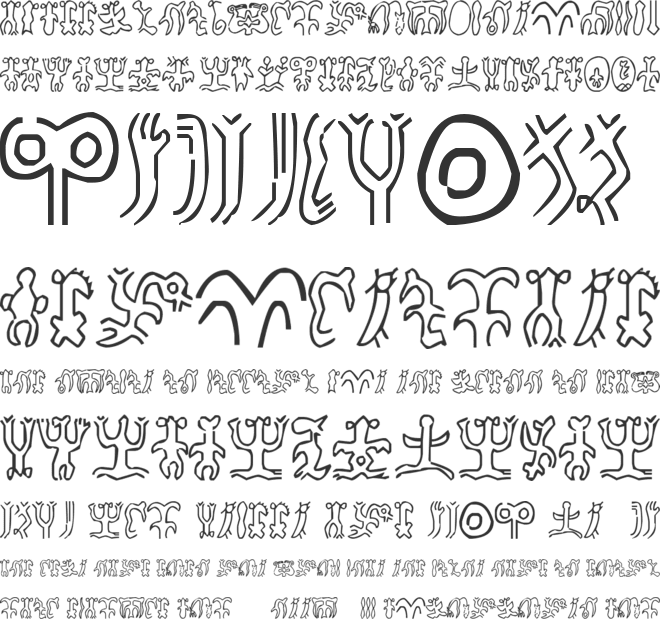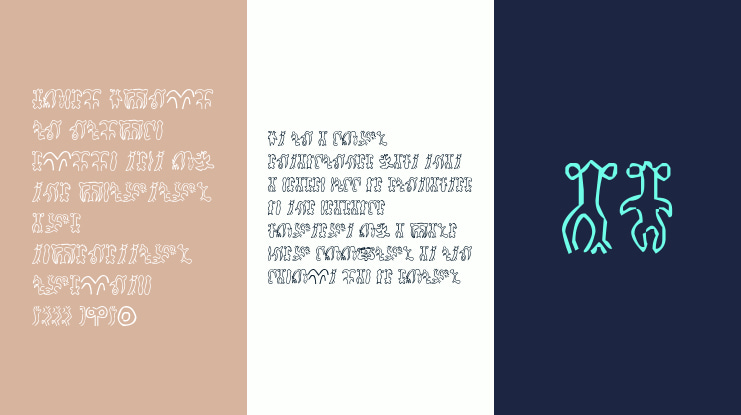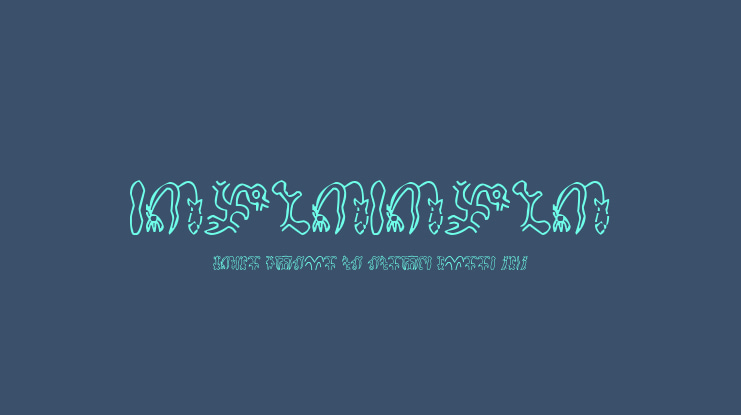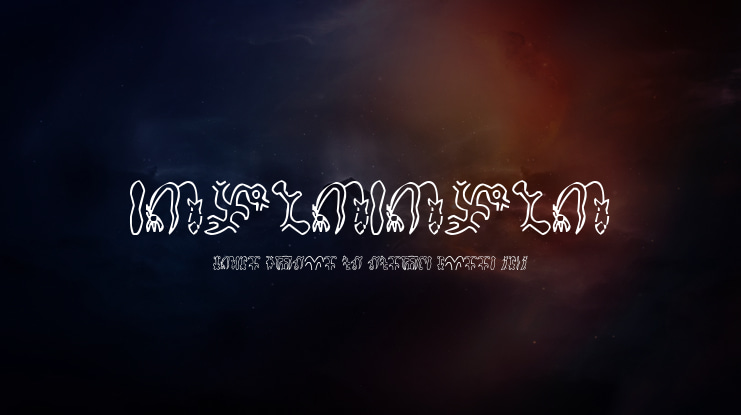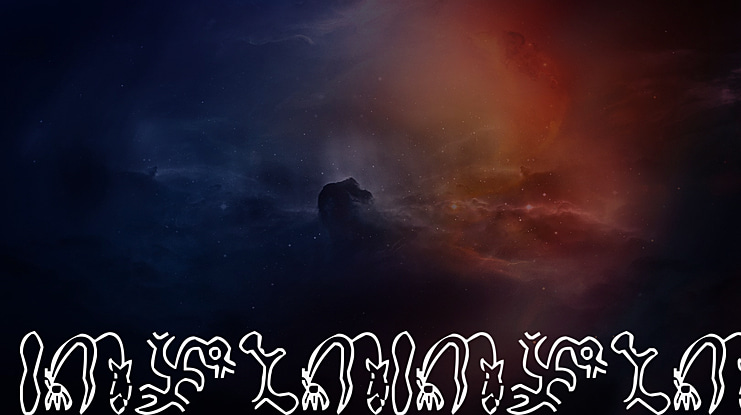
rongorongo Font
Rongorongo is a system of glyphs discovered in the 19th century on Easter Island that appears to be writing or proto-writing. Numerous attempts at decipherment have been made, none successfully. Although some calendrical and what might prove to be genealogical information has been identified, not even these glyphs can actually be read. If rongorongo does prove to be writing, it would be one of very few independent inventions of writing in human history.